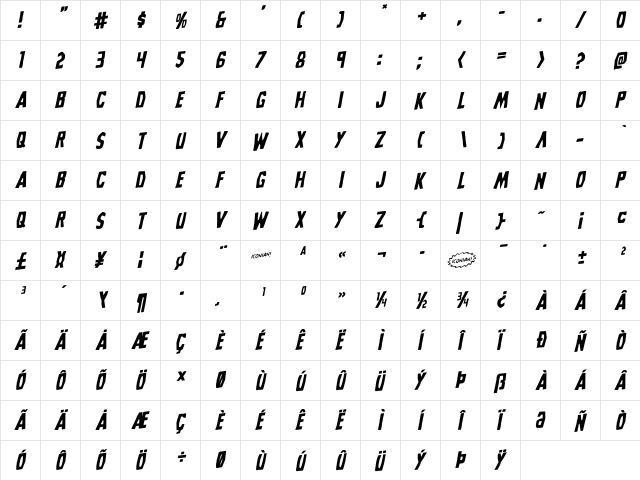
Grim Ghost Rotalic Regular
Design Context for Grim Ghost Rotalic Typeface
Grim Ghost Rotalic is a composed and adaptable typeface that performs quietly and consistently across a wide range of design contexts.